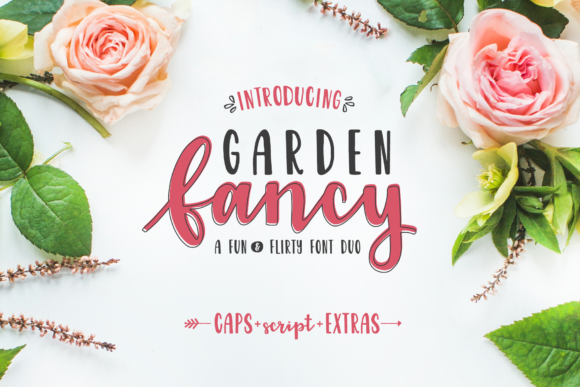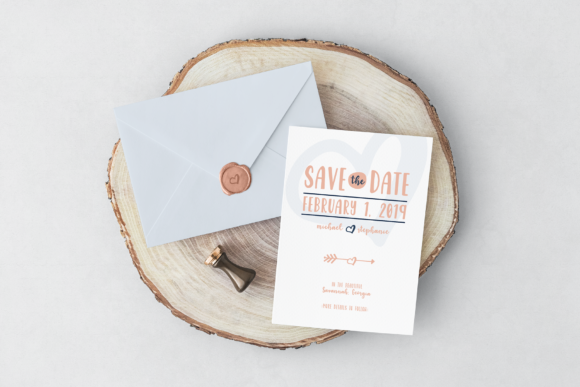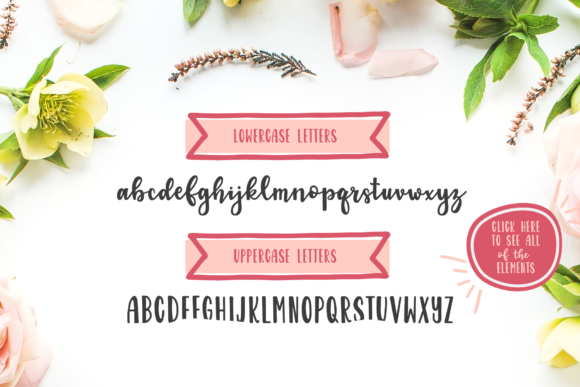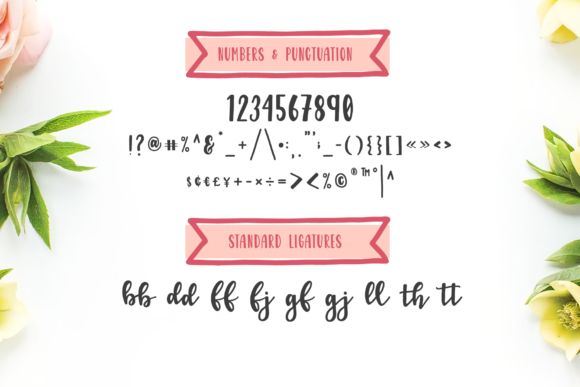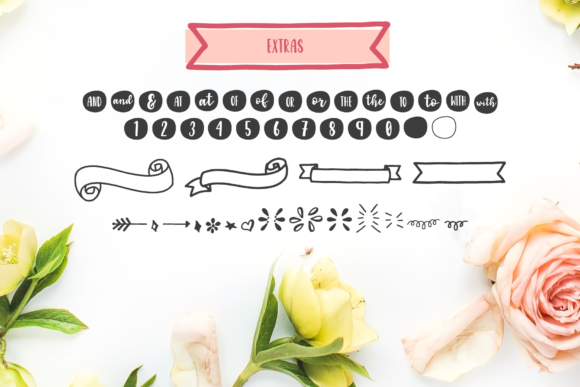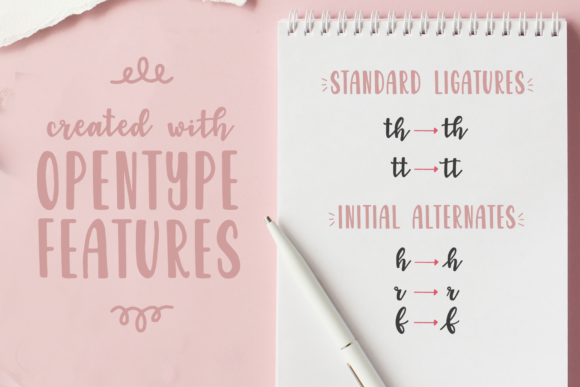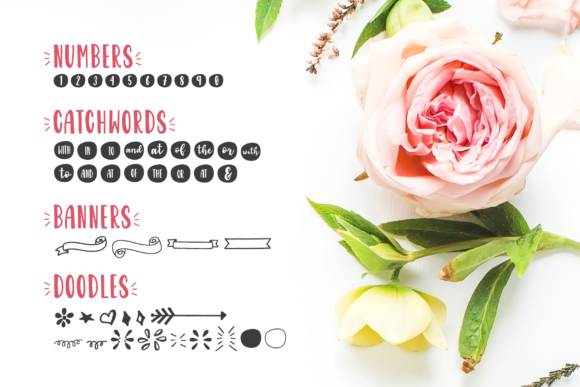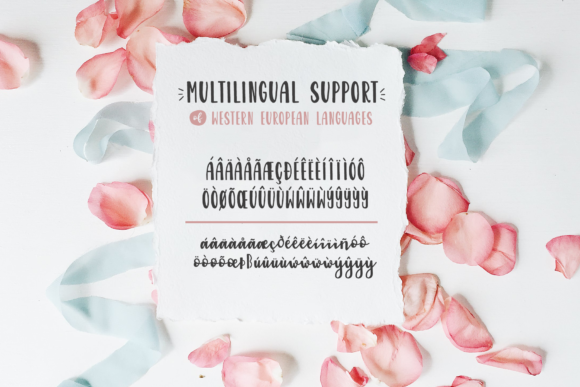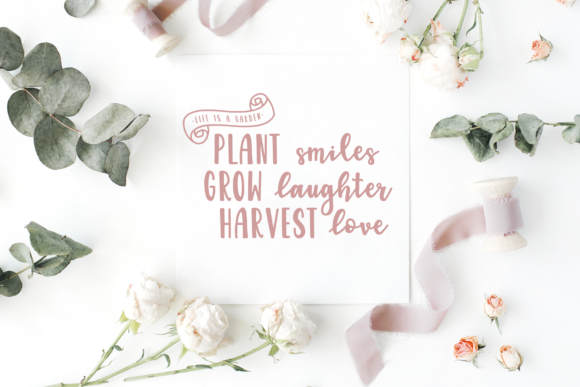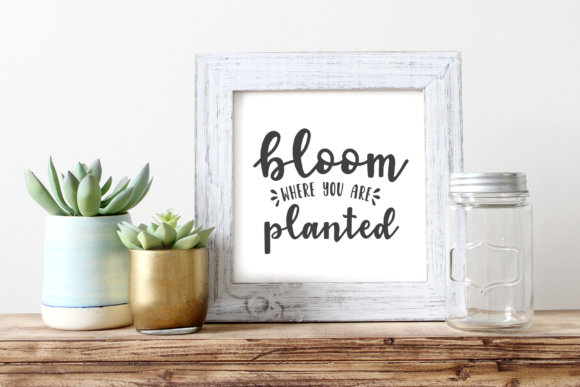
Garden Fancy Duo Font
About Garden Fancy Duo Font
Garden Fancy duo is a match made in heaven, the ligatures of the script perfectly complements the dingbat’s style. Combining these two fonts on your next design will give your next design a modern and cute feel.